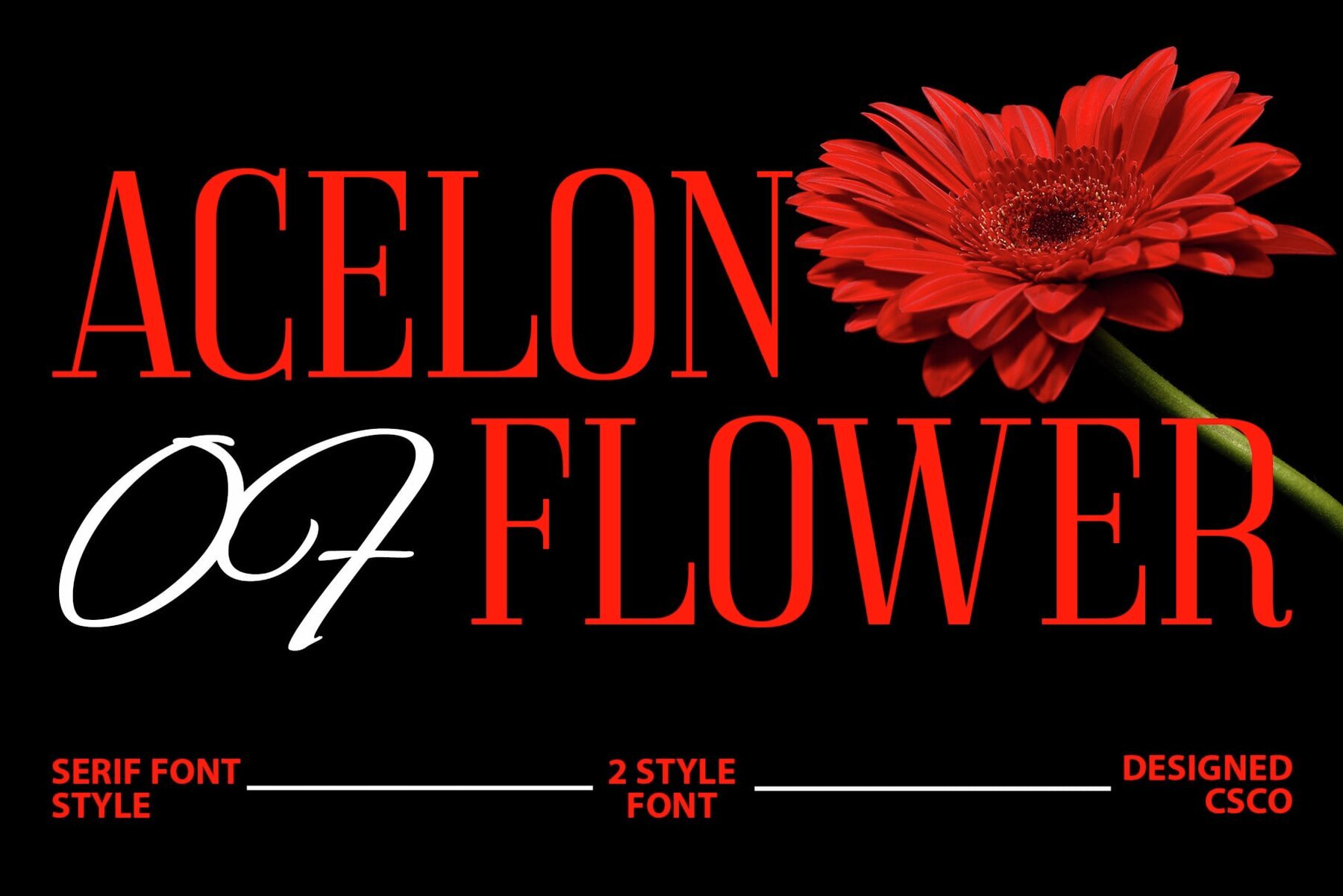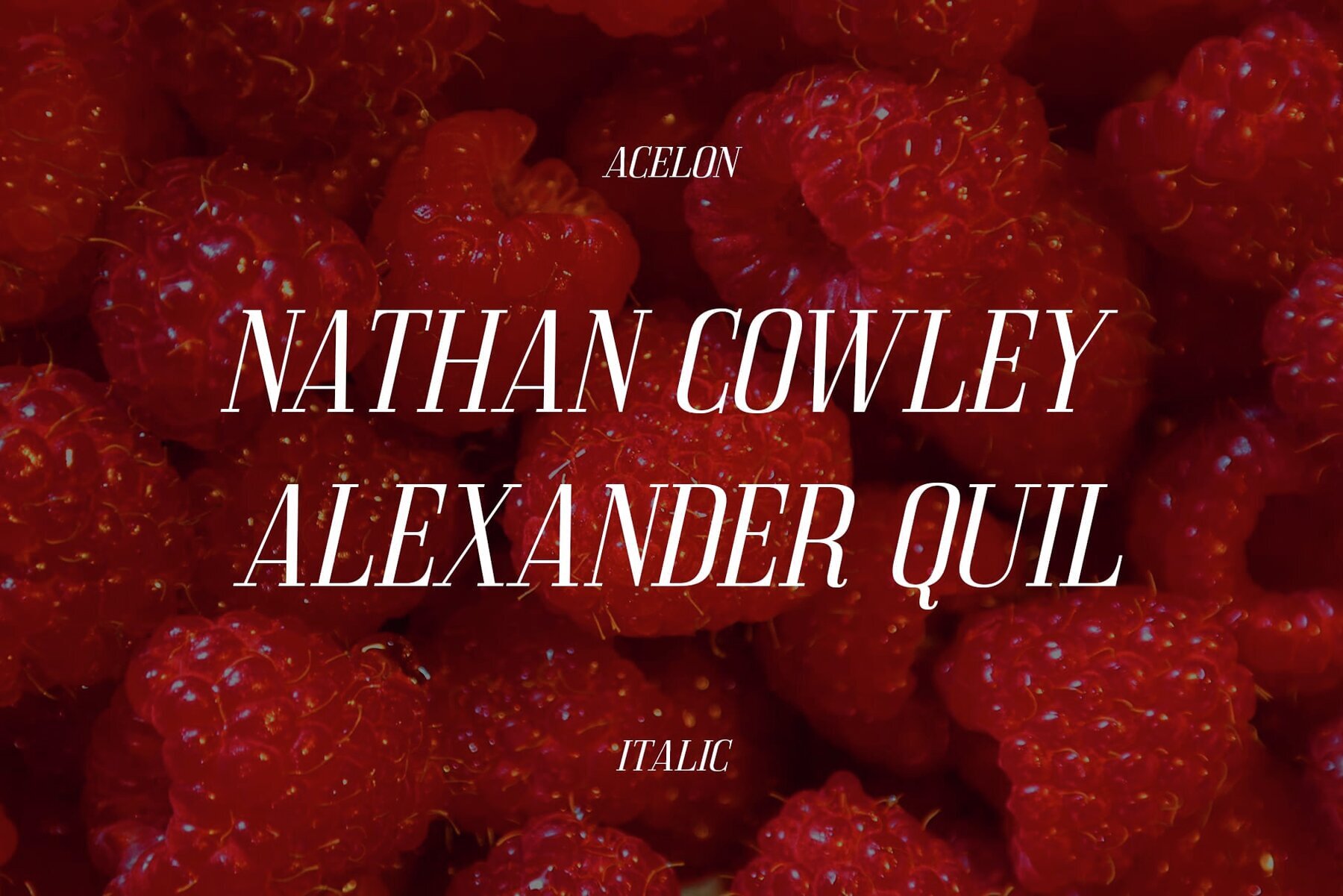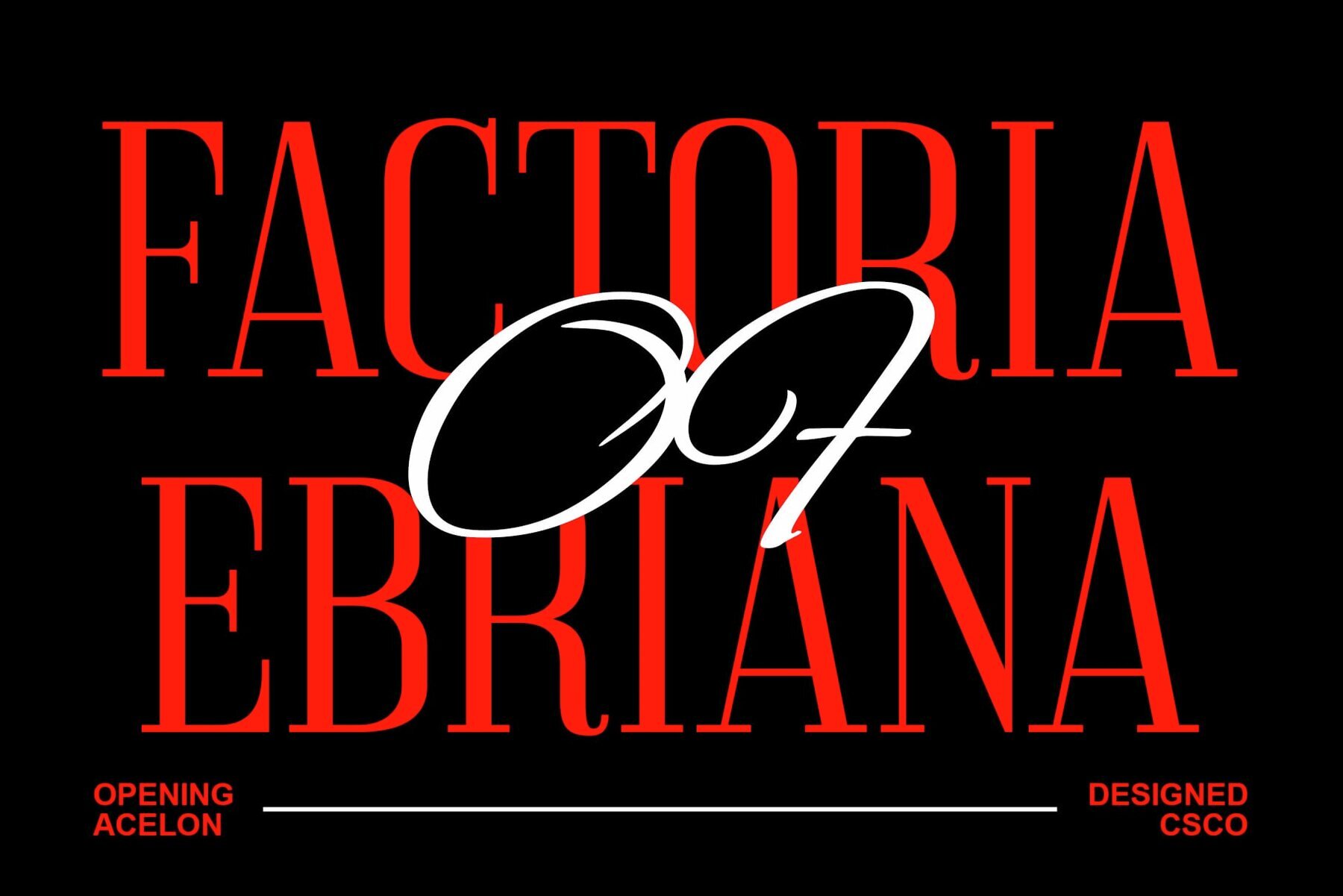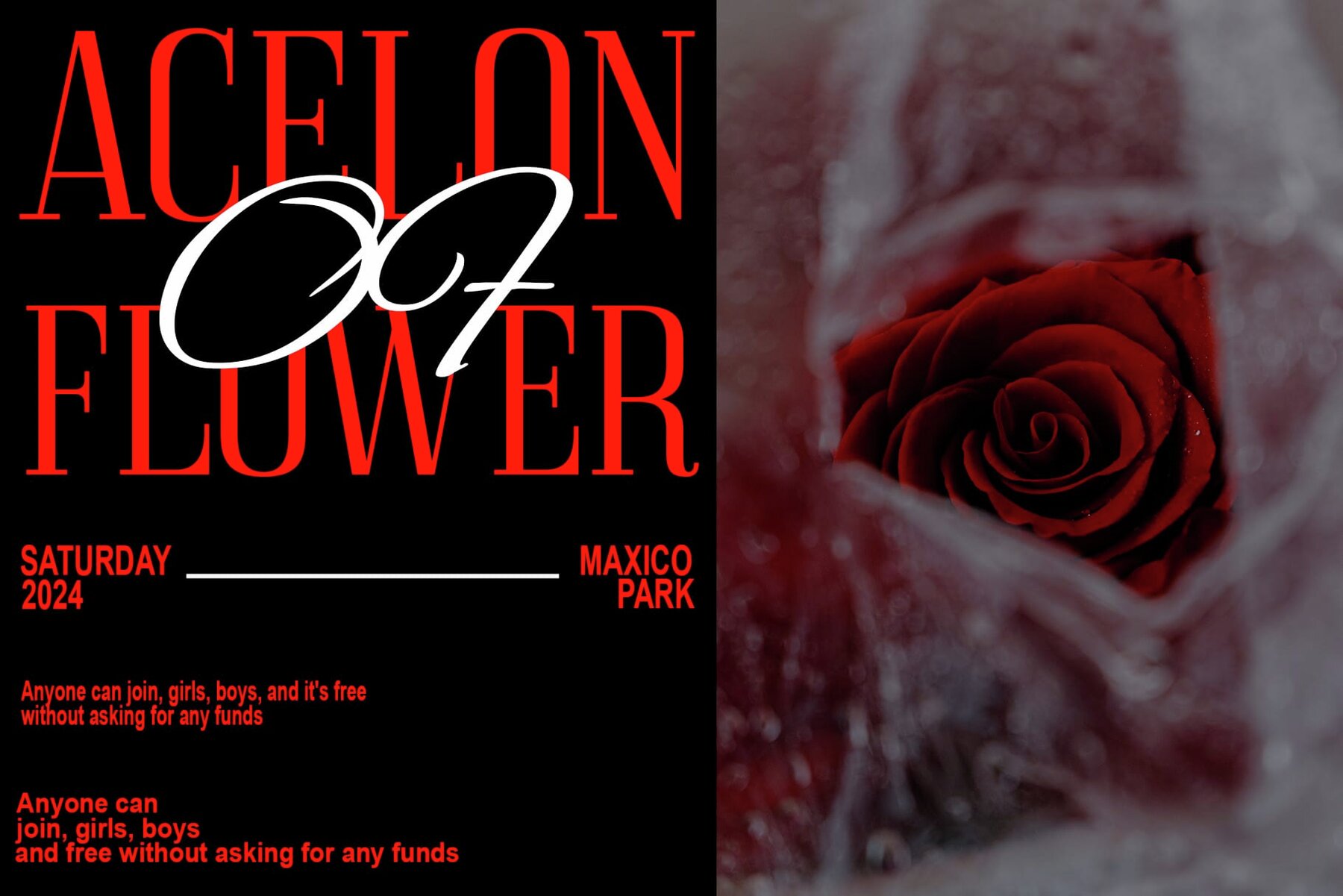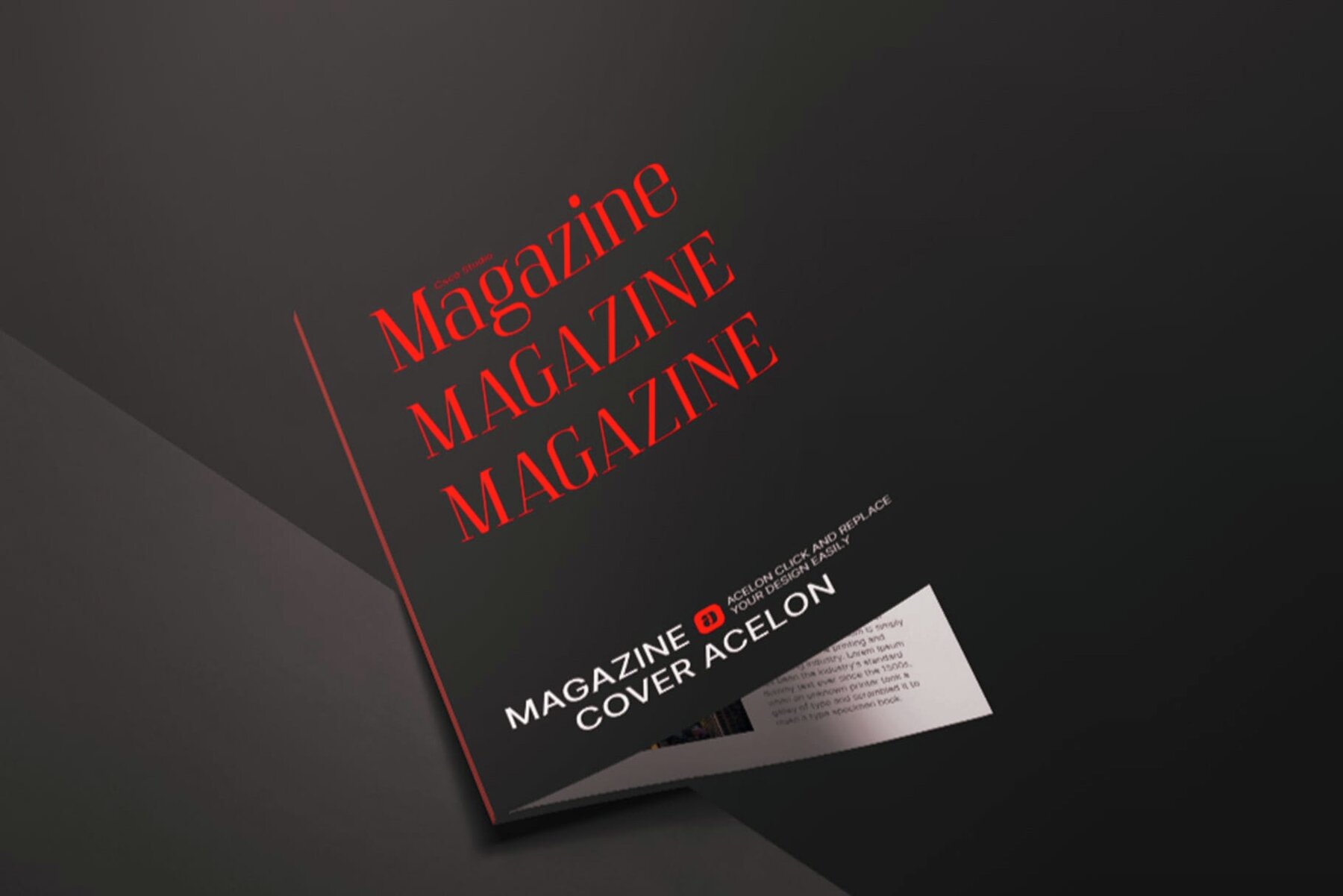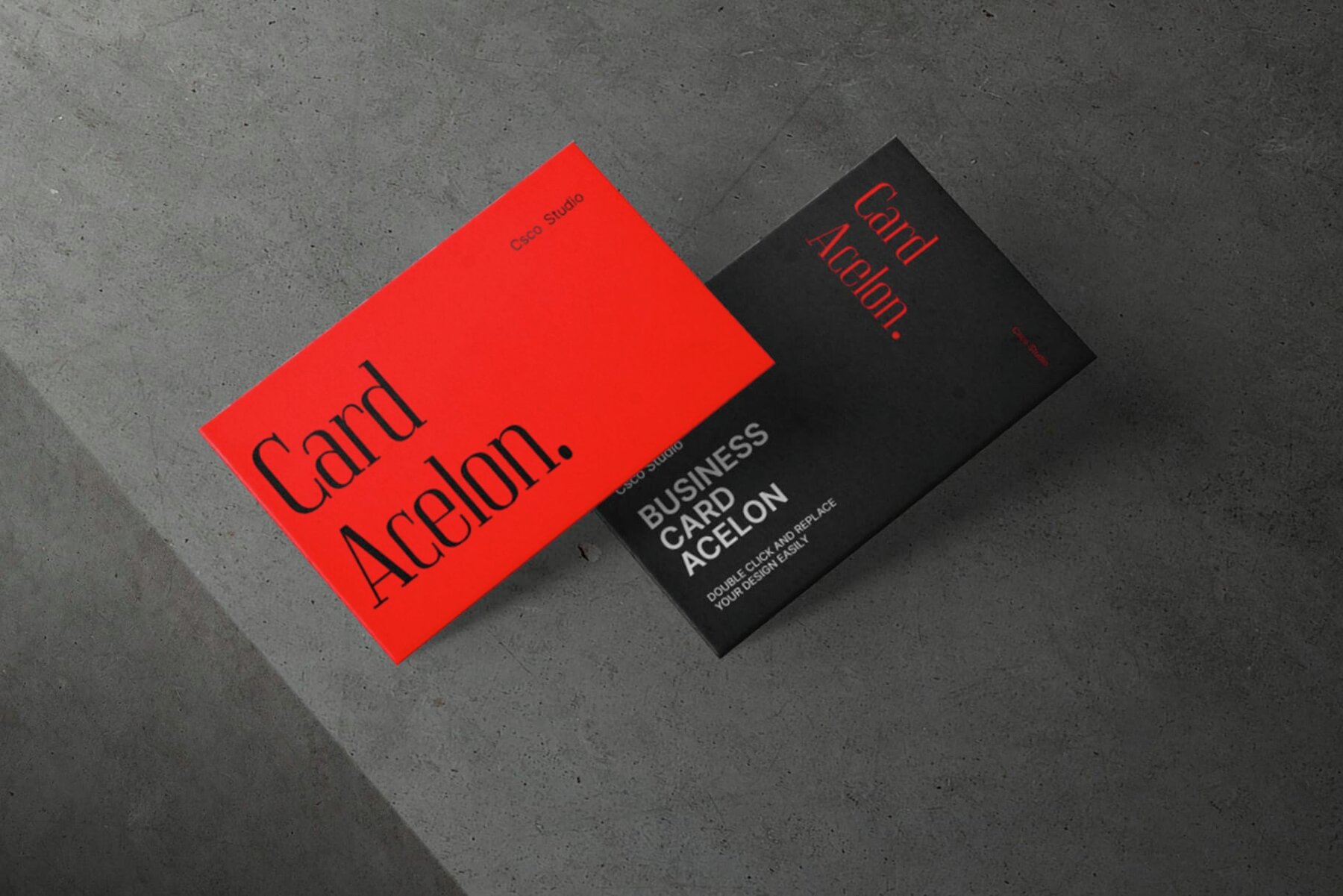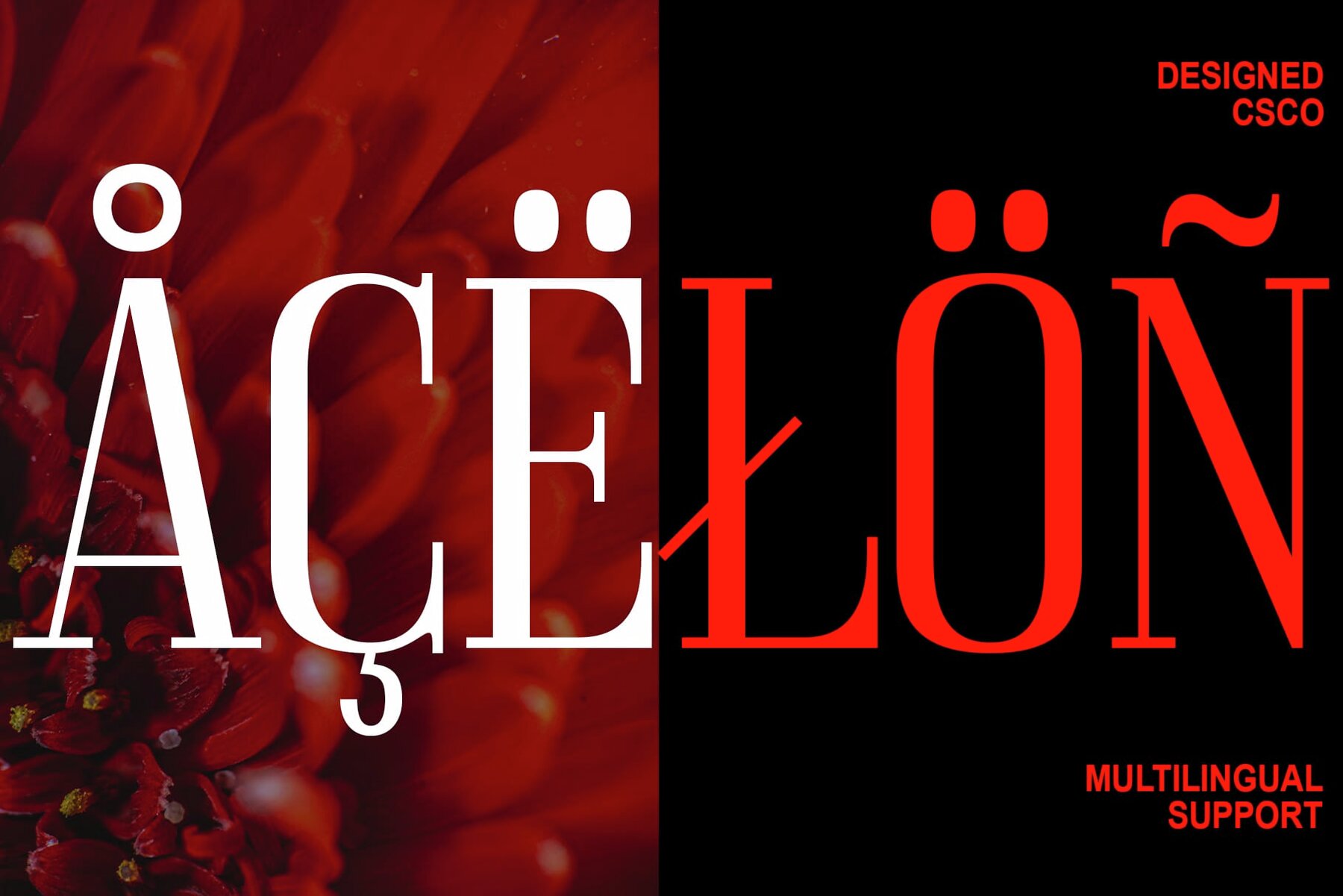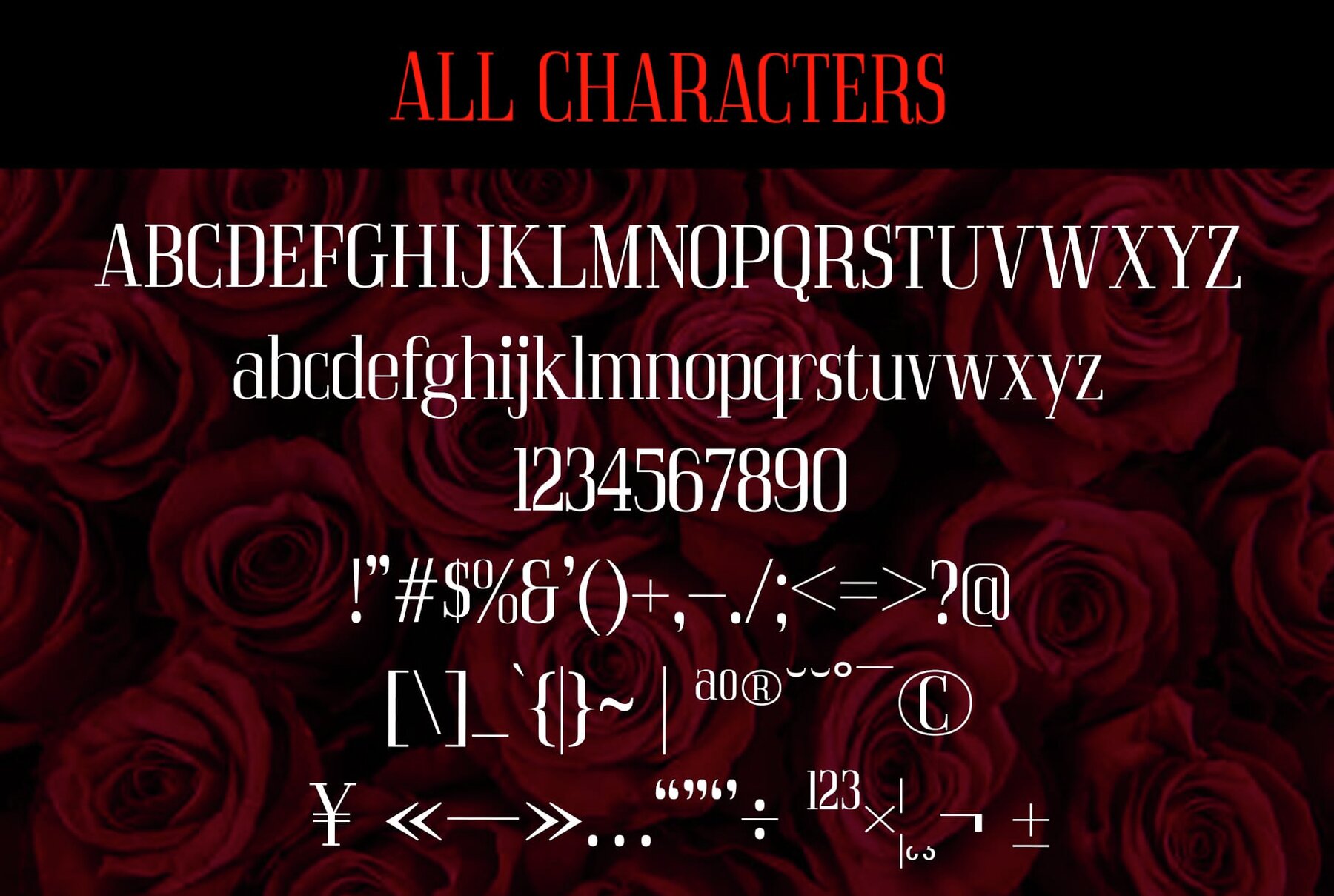
Acelon Font
Acelon is a condensed serif font that epitomizes modern corporate elegance. With its streamlined sophistication, it delivers a powerful visual impact aligned with corporate aesthetics. Featuring commanding height and precise strokes, Acelon effectively captivates attention. It is the perfect choice for corporate identities seeking a visually strong presence. The condensed form of Acelon exudes professionalism, ensuring clarity in communication. It establishes itself as an ideal companion for corporate visual strategies. From business cards to annual reports, Acelon’s condensed serif style enhances diverse design projects with refinement, breaking traditional boundaries. In the world of typography, Acelon is more than just a font. It's a language of precision and elegance, elevating corporate communication with meticulous craft to convey authority, sophistication, and timeless style. This typeface can be used without any specialized software. If you have any inquiries or need assistance, please feel free to contact us. We appreciate your support in enhancing your creative projects!Acelon: Elegant Condensed Serif for Corporate Design
Striking Sophistication
Precision for Professionalism
Versatile and Impactful Designs
Refining Corporate Communication